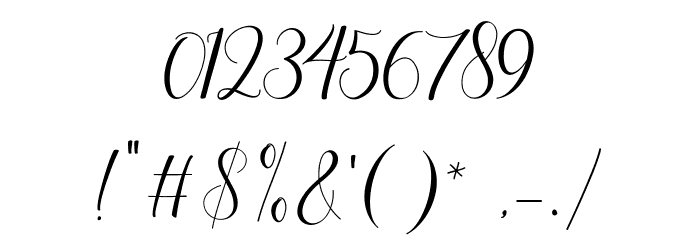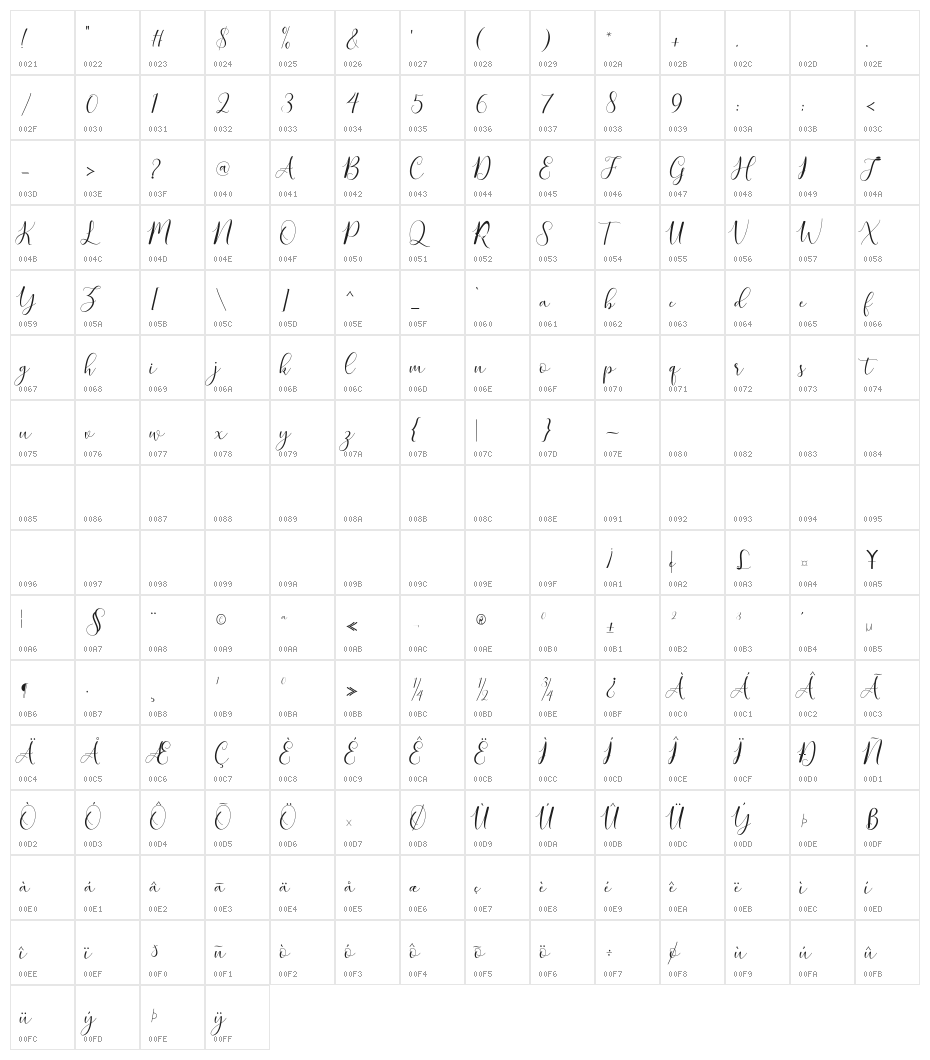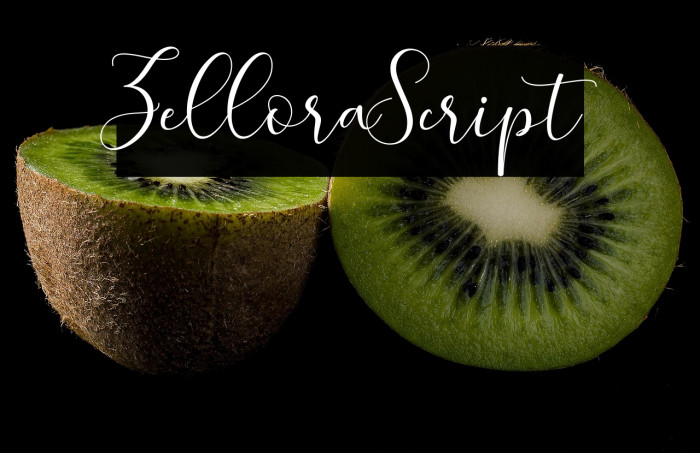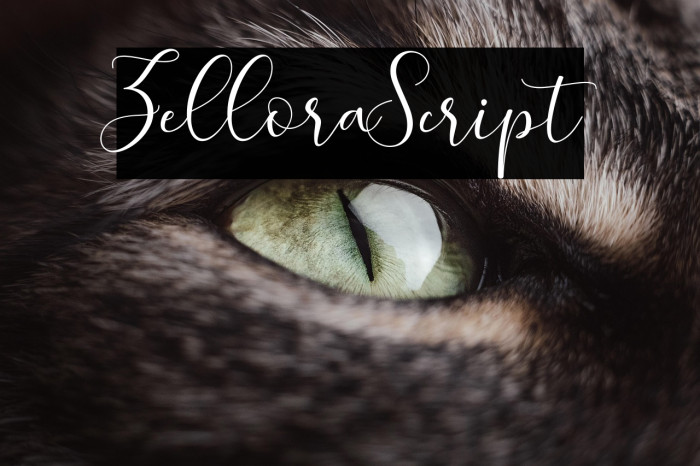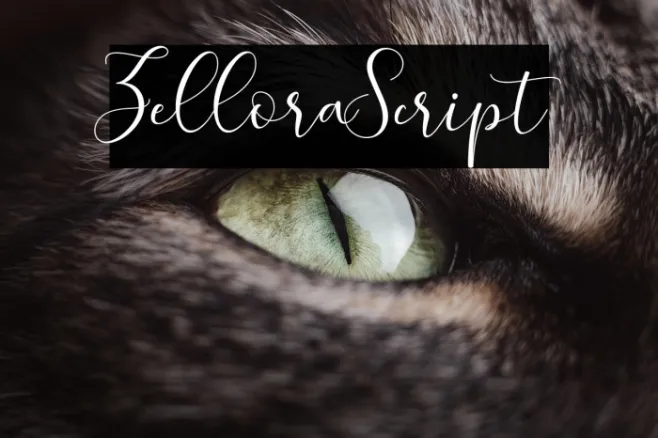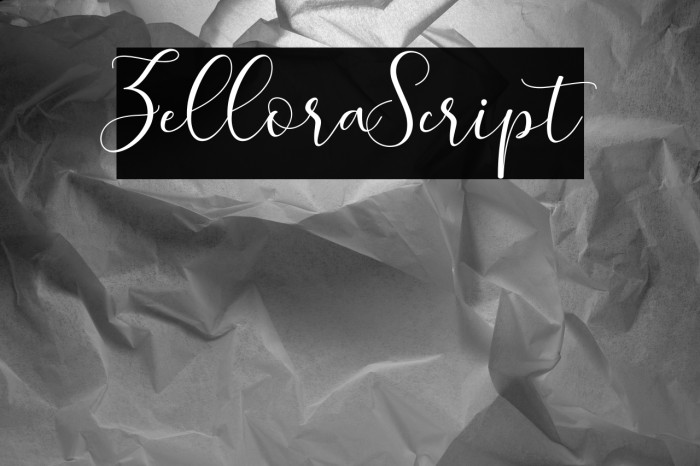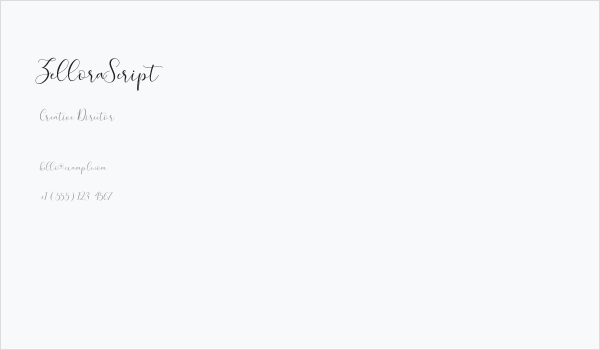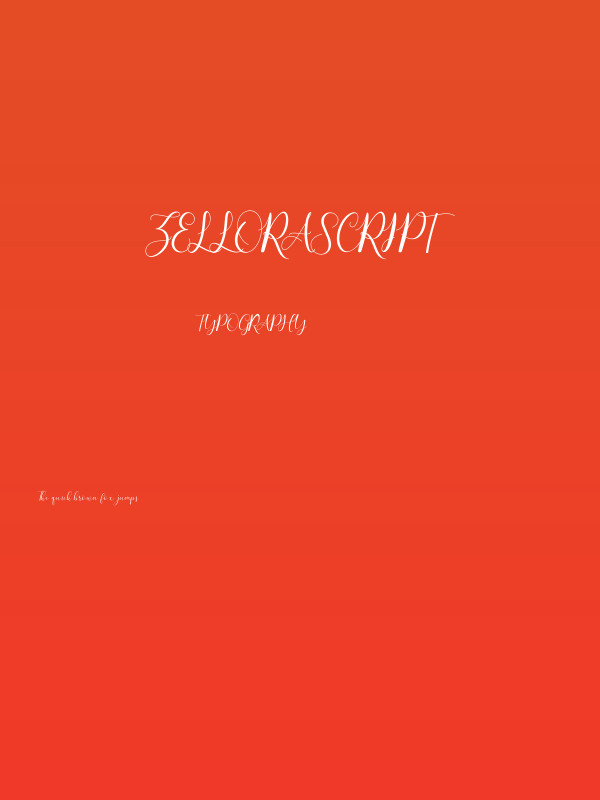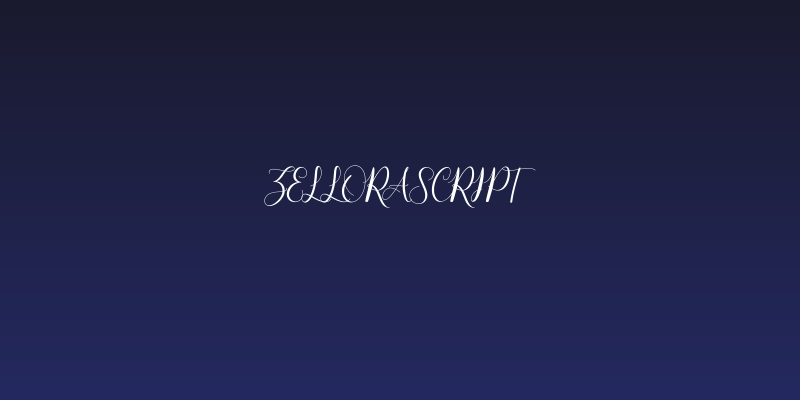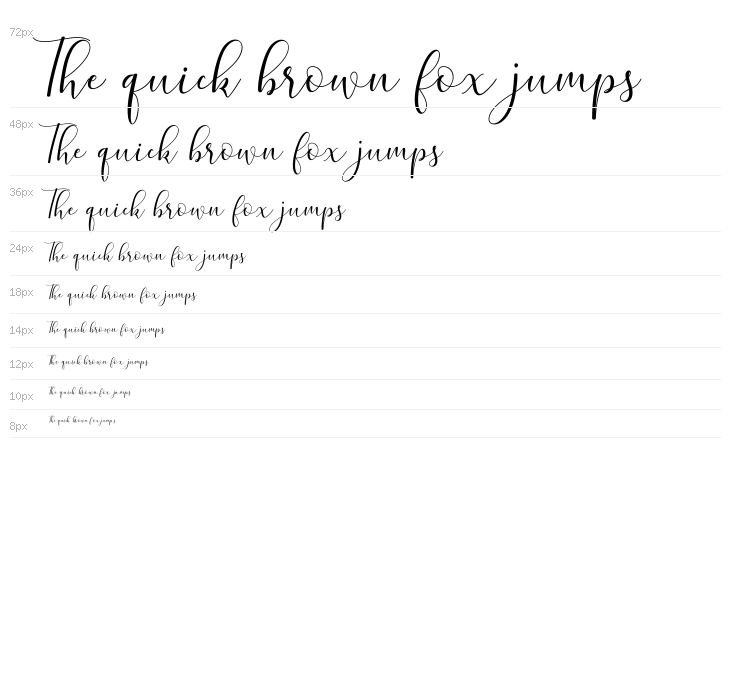
ZelloraScript Font
ZelloraScript Description
This elegant script font features flowing, cursive strokes that exude sophistication and grace. The uppercase letters are characterized by their sweeping, dramatic flourishes, while the lowercase letters maintain a more subtle, yet equally stylish appearance. The numerals and special characters are designed to complement the overall aesthetic, ensuring a cohesive look across all text. The font's delicate lines and high contrast between thick and thin strokes make it ideal for creating a luxurious and refined impression. Its intricate details and fluid motion lend themselves well to projects that require a touch of elegance and artistry.
| Overall Style | Elegant, Artistic |
| Proposed Projects | Ideal for wedding invitations, luxury branding, elegant stationery, and artistic projects. |